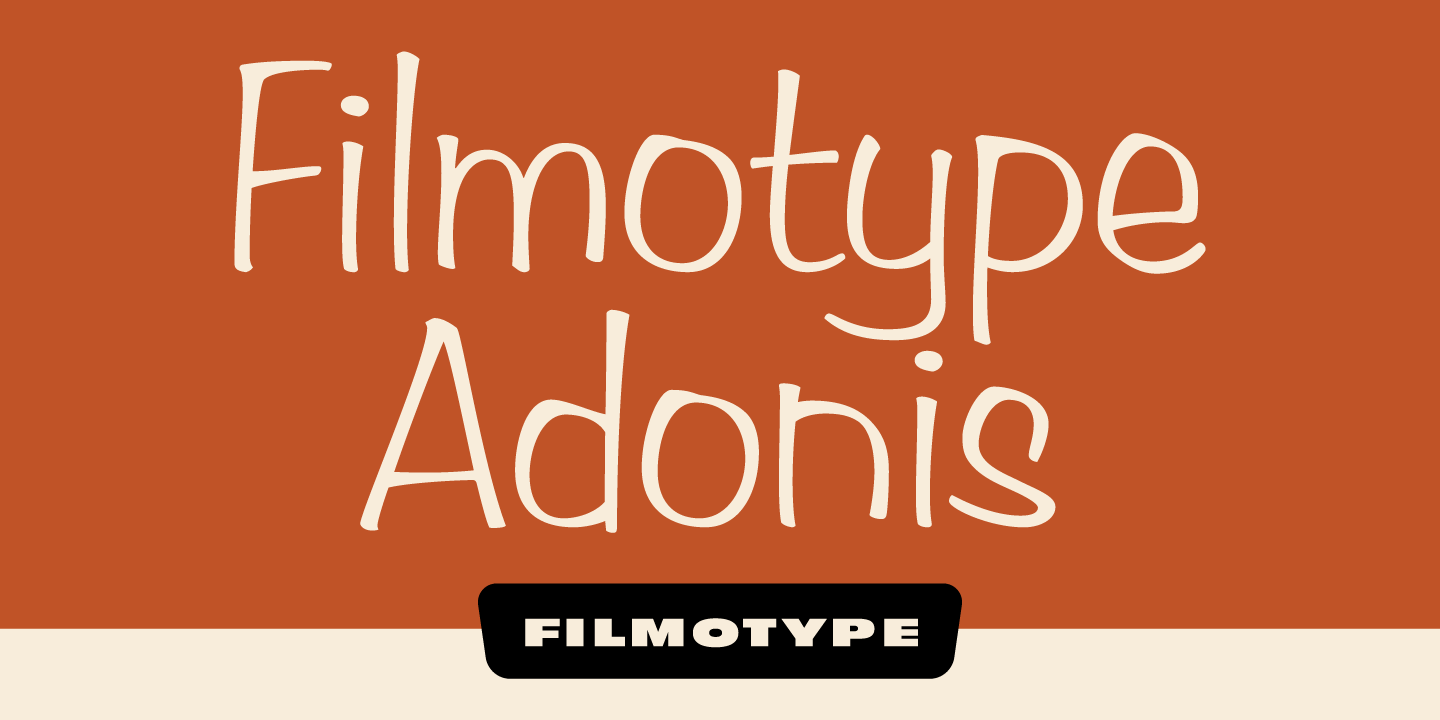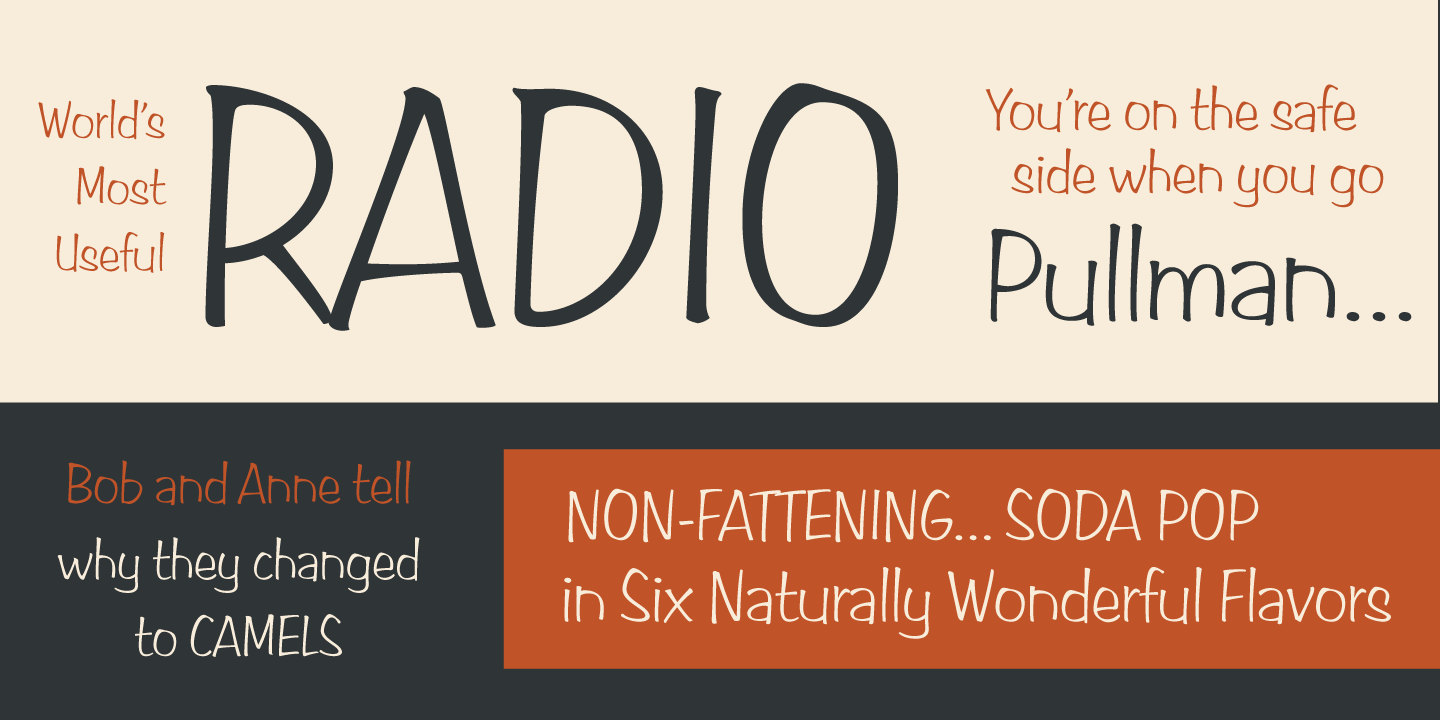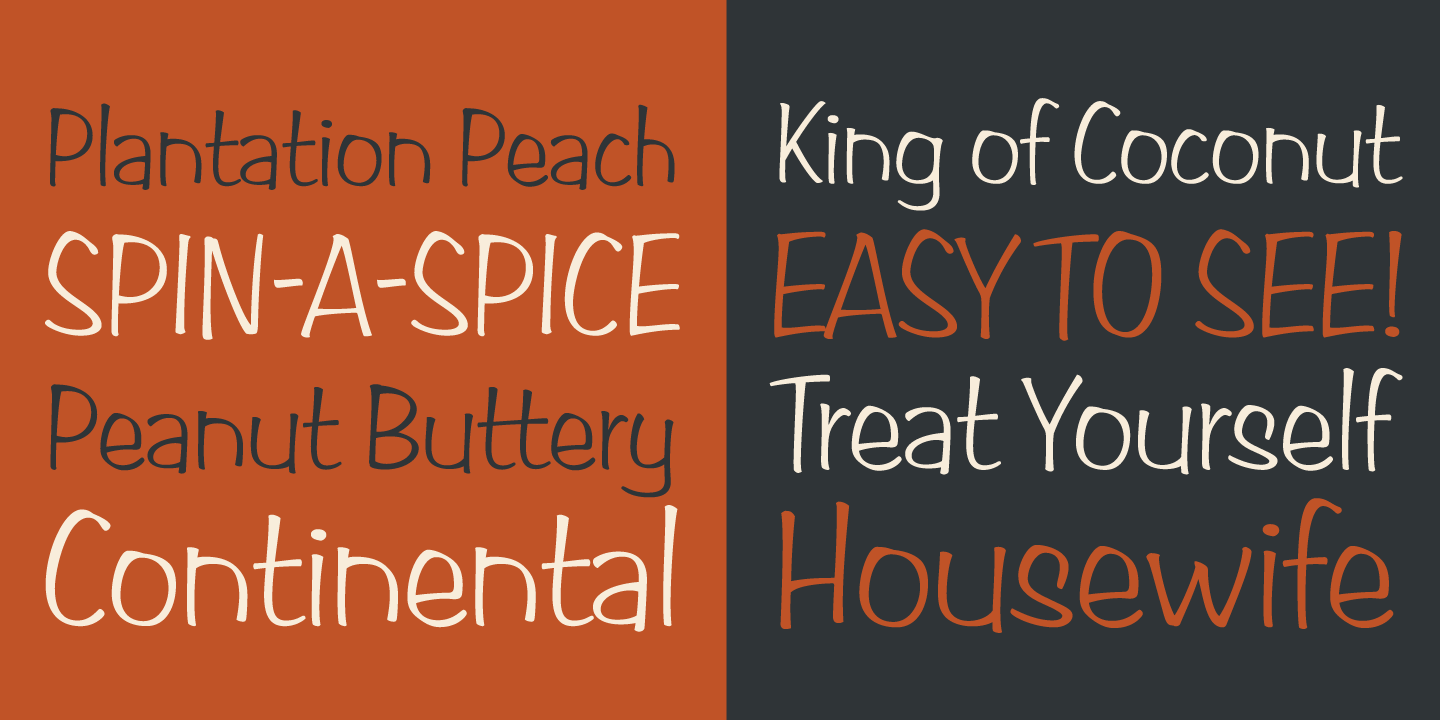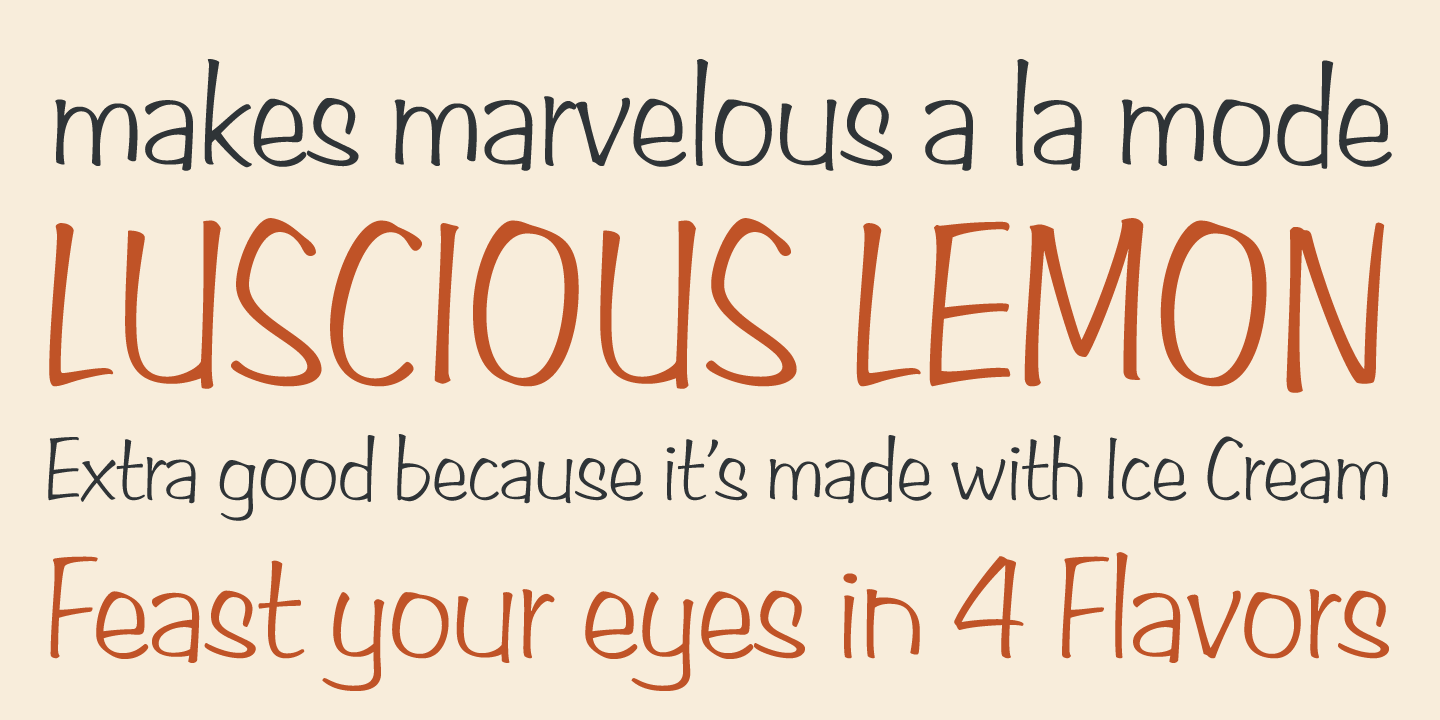
Filmotype Adonis
Filmotype Adonis is one of the earliest casual handwritten scripts that was introduced by Filmotype in the early 1950s. It perfectly captures the mid-century playfulness of hand lettering while providing comfortable readability. Filmotype Adonis was developed from the original font filmstrips and includes a full international character compliment, automatic fractionals, ordinals, and a host of alternate characters in dynamic OpenType format.